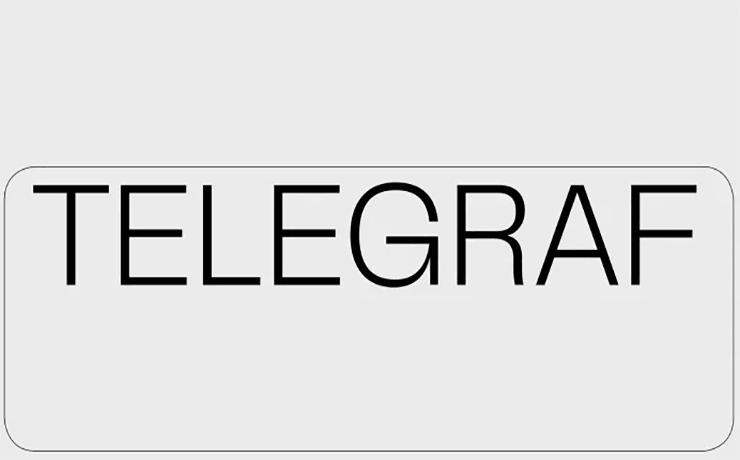
Telegraf Font is a grotesque sans serif typeface that comes with rectangular edges and even a sort of rigid look and feel. So, this is such an elegantly designed typeface.
This display font was created by Nick Losacco that is a Montreal-based designer with a focus on type design, branding, and web design.
It is ideal for body content and features on a website. It’s a modern style, fits the past features of incredible typeface, makes it very understandable in any unique situation.
The rectangular counter on some of the letters makes it an unusual font. Permanently mix with other fonts while maintaining your uniqueness.
This display font consists of highly comprehensible characters that reflect keen features and clear readability.
This font is perfectly suited for long text paragraphs, bold headings, book covers, web content, web designing, app development, news headings, newspapers, printing on cards, t-shirt printing, and several other things.